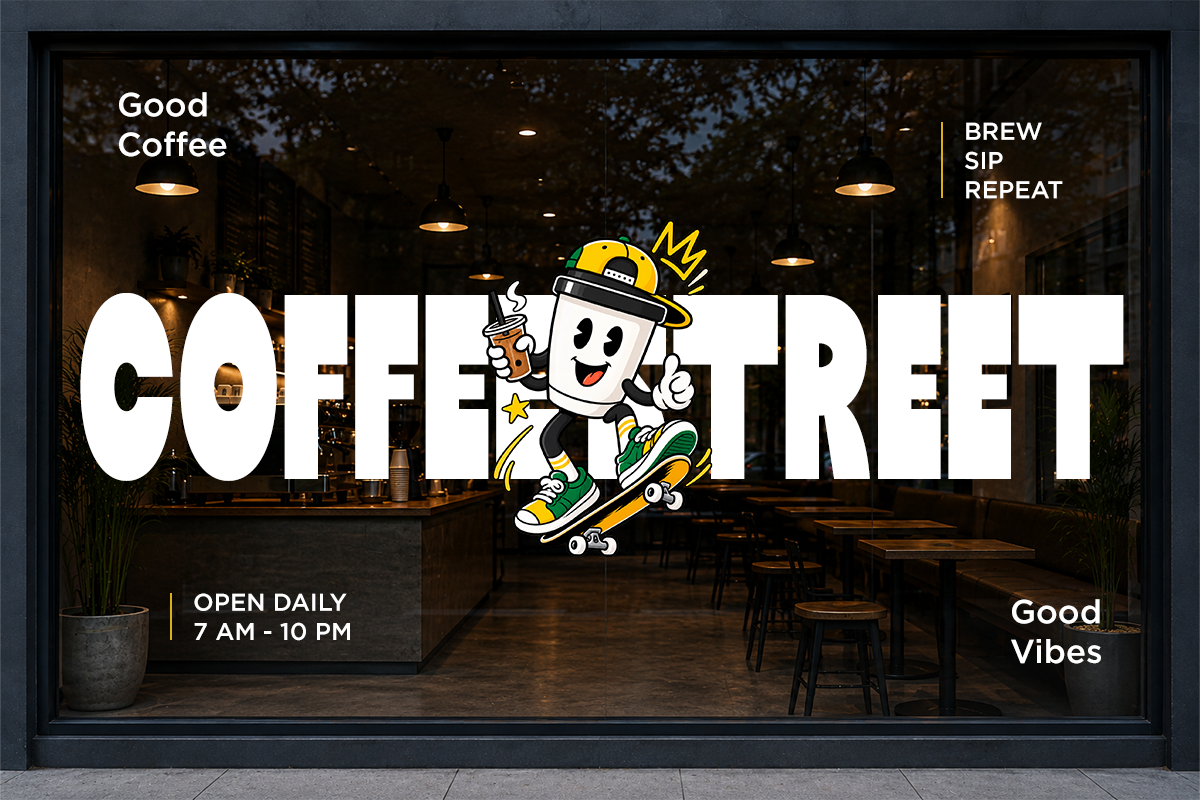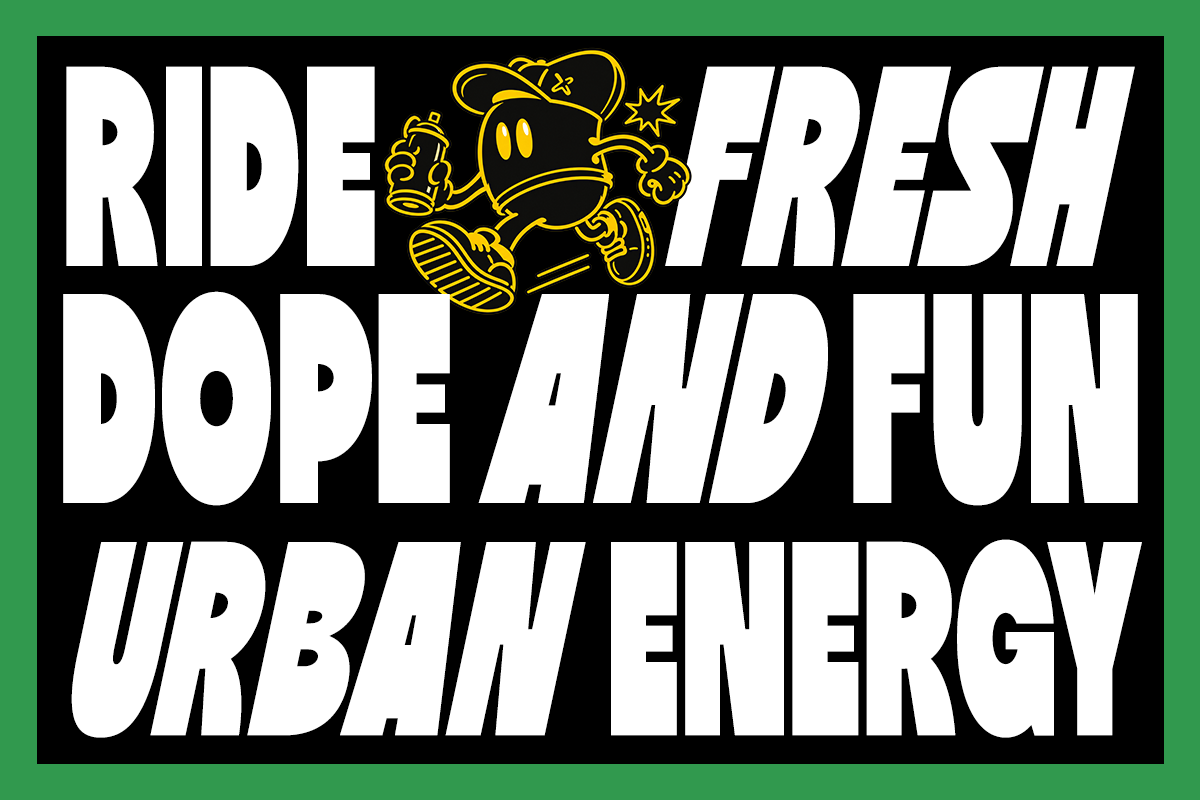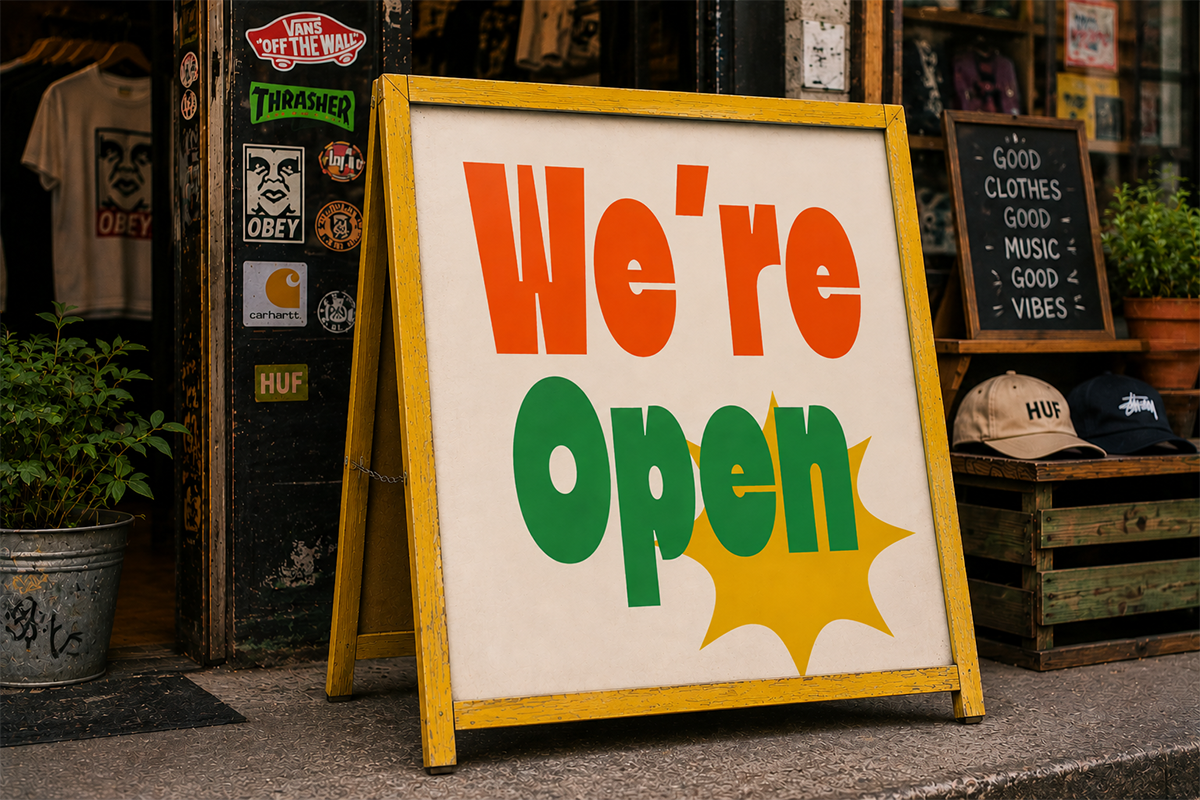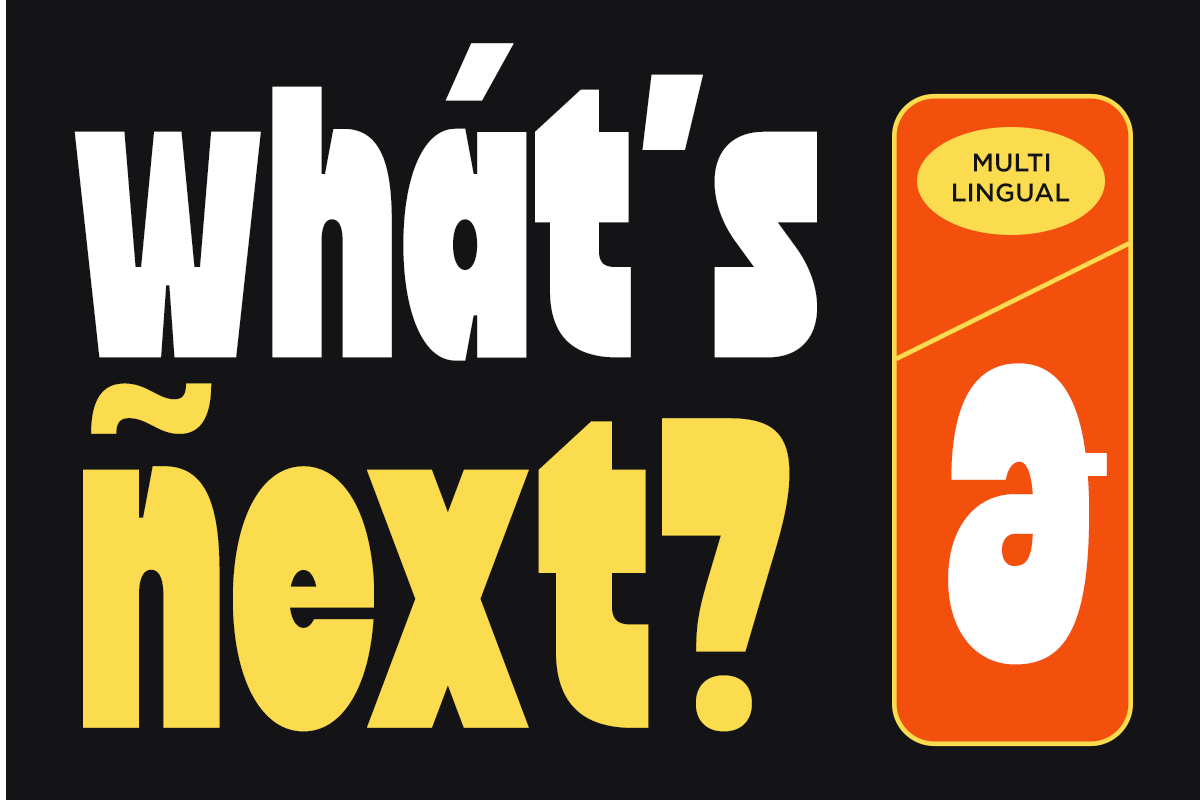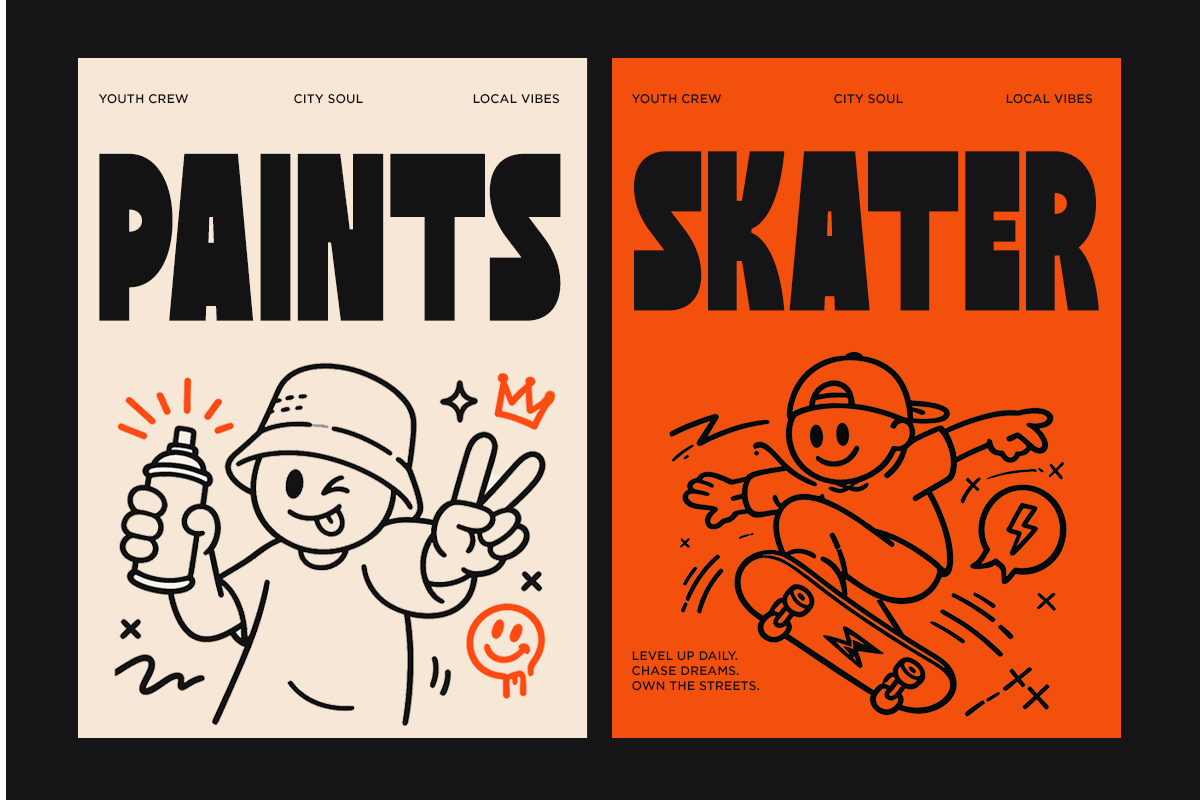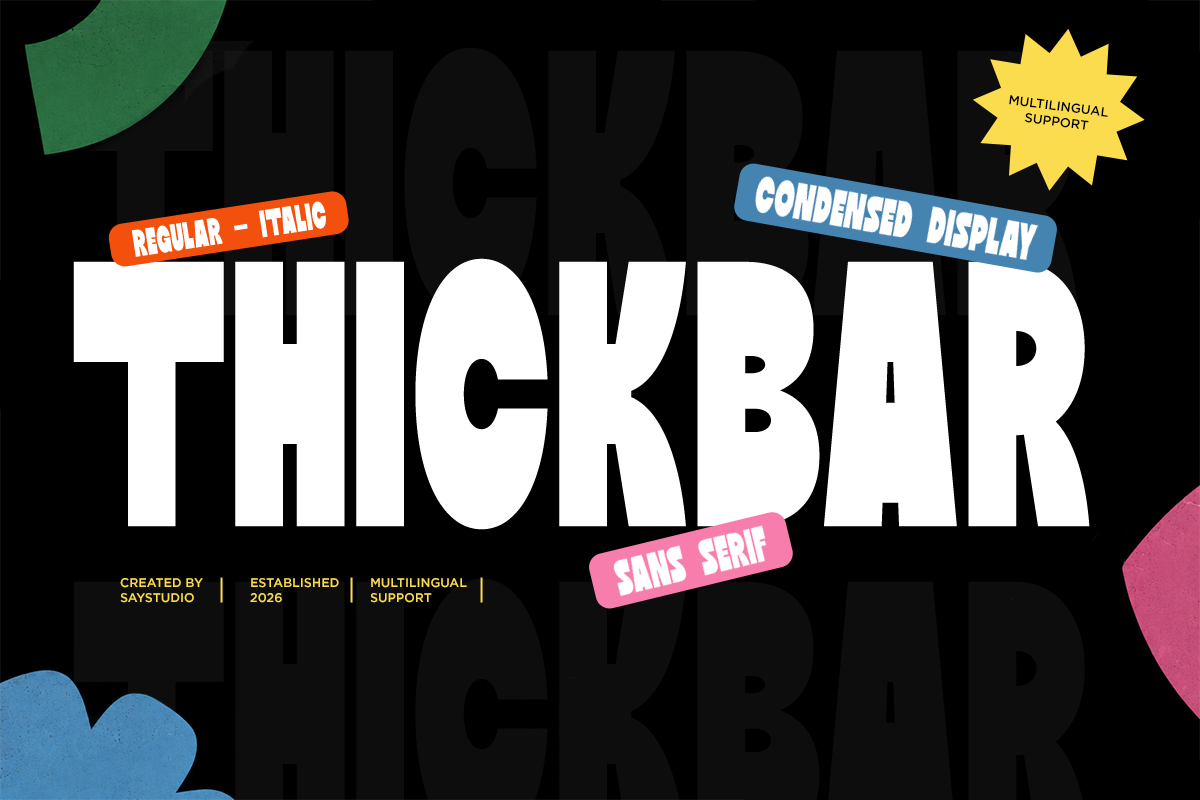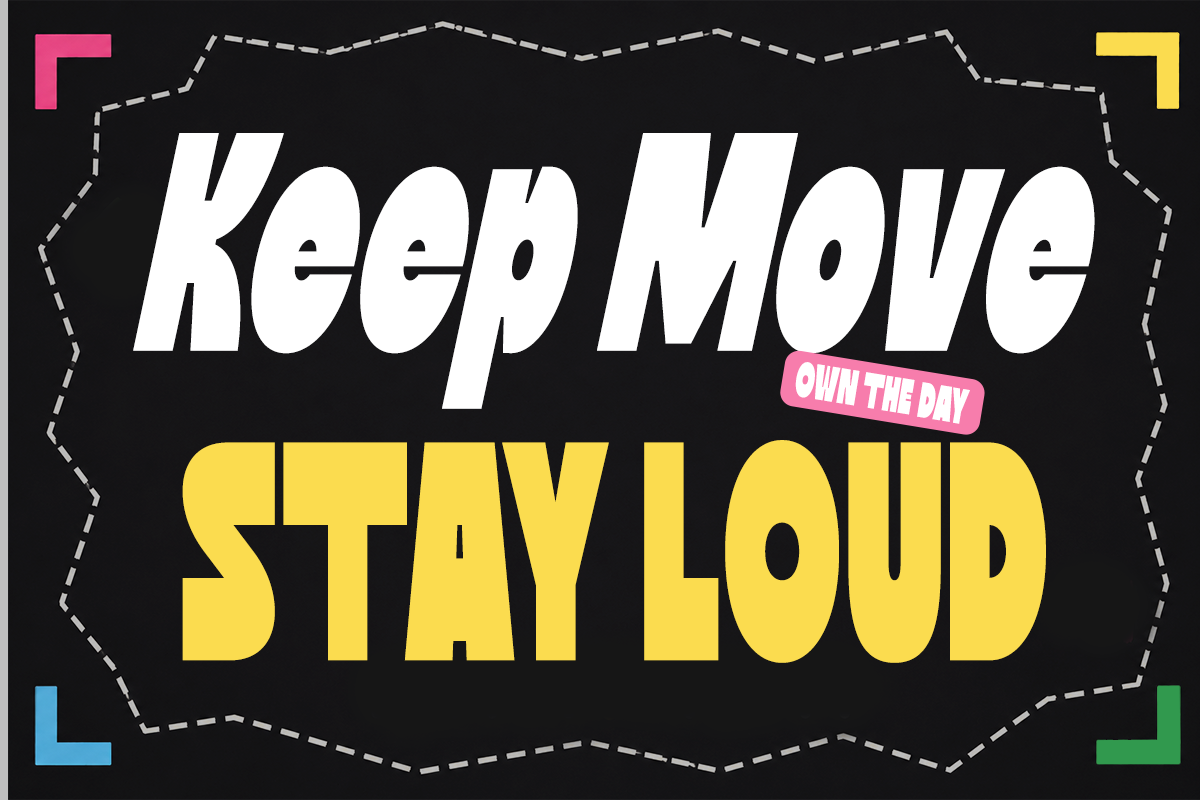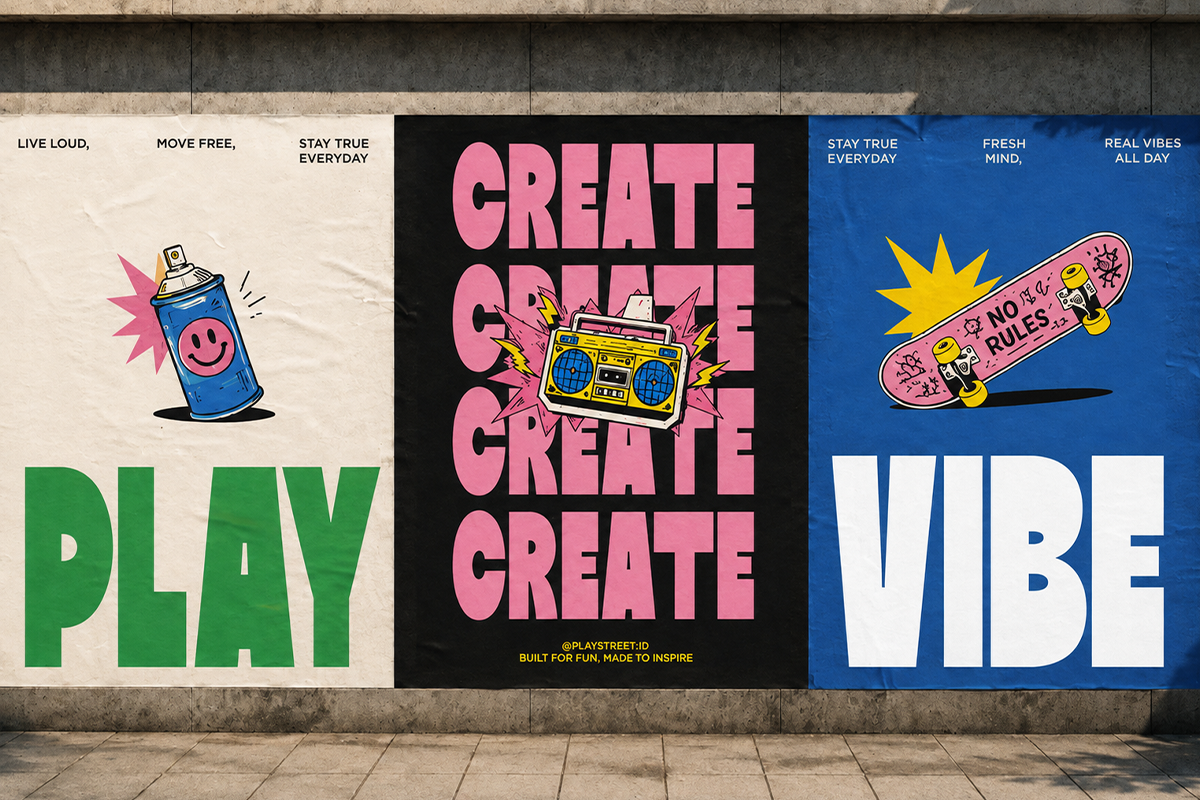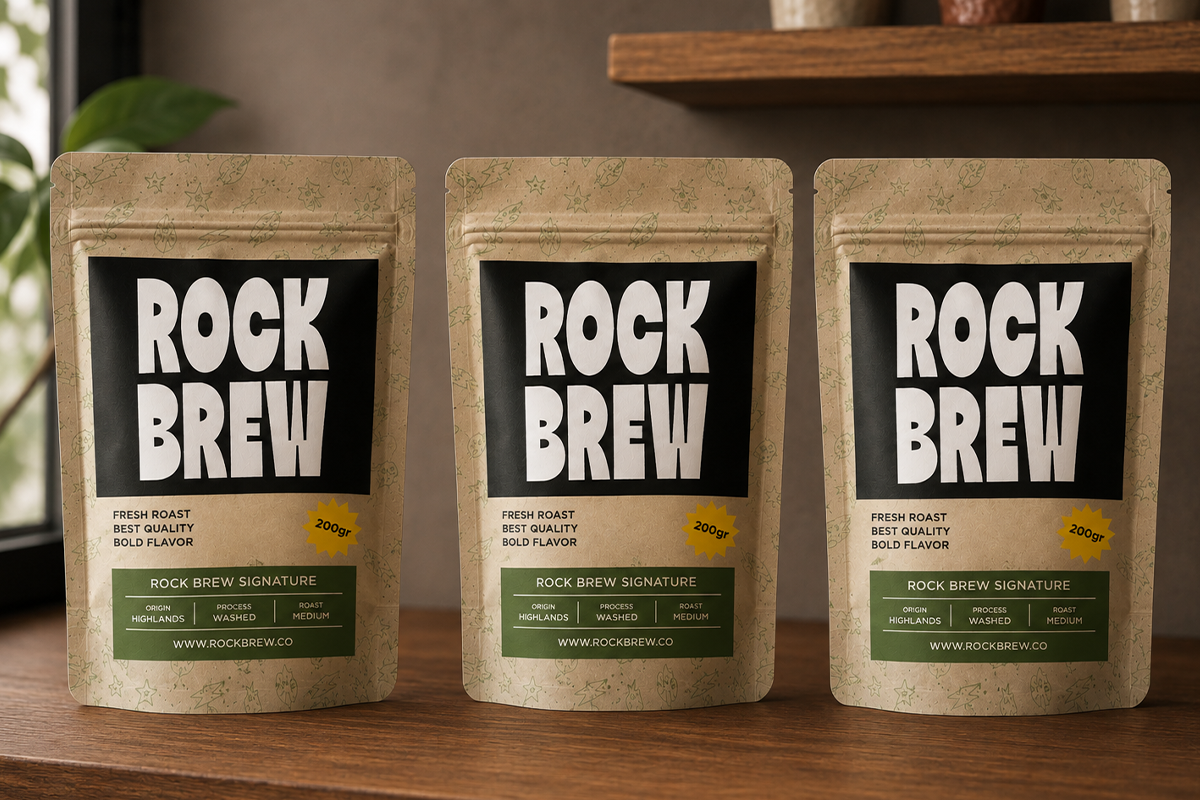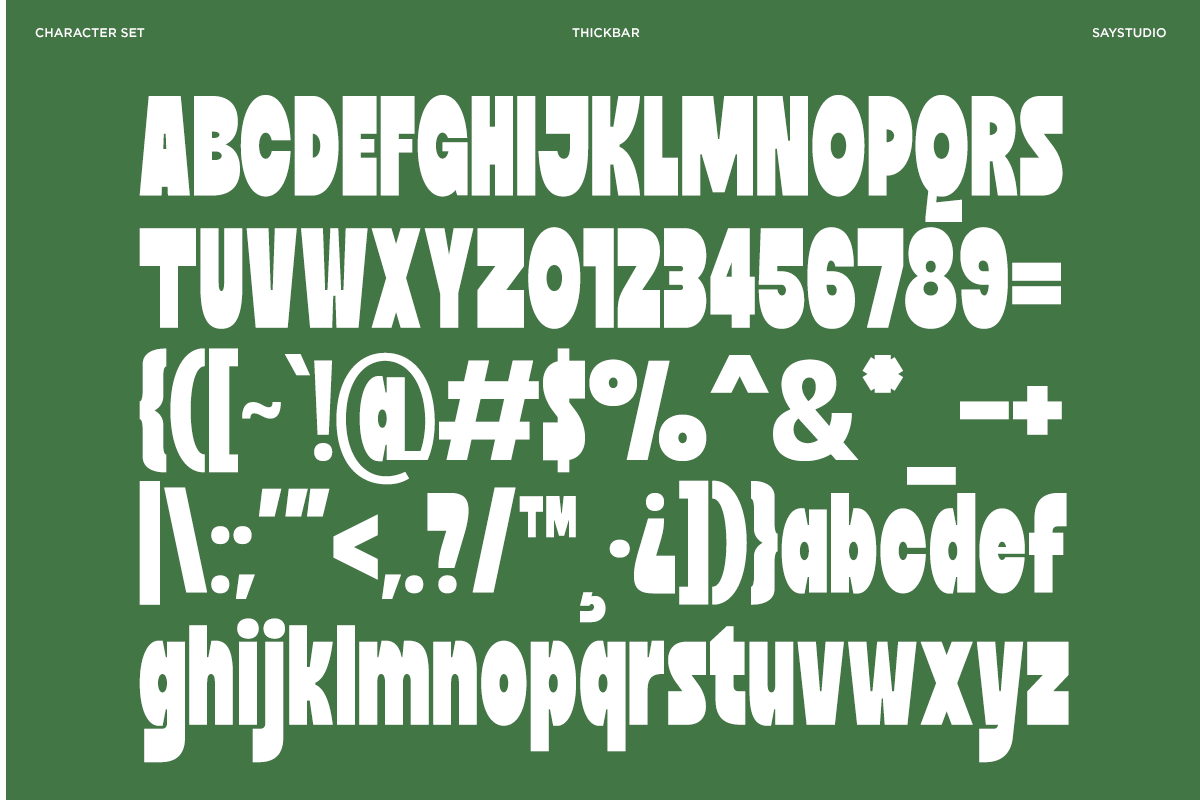
Thickbar - Bold Condensed Sans Font
Thickbar is a bold and playful display font with chunky letterforms and a strong urban personality. Its heavy shapes, expressive details, and energetic appearance make it perfect for designs that need to feel confident, fun, and instantly noticeable.
Designed for impactful visual projects, Thickbar works beautifully for posters, branding, logos, apparel, packaging, headlines, skate graphics, sports designs, advertising, and social media content. Its bold character adds a distinctive street-inspired touch while maintaining excellent visual impact.
From retro-inspired campaigns to modern urban artwork, Thickbar brings a dynamic and expressive style to your typography. Use it for eye-catching headlines, memorable brand identities, merchandise, and creative display compositions.
Regular and Italic
Number, Symbol, and Punctuation